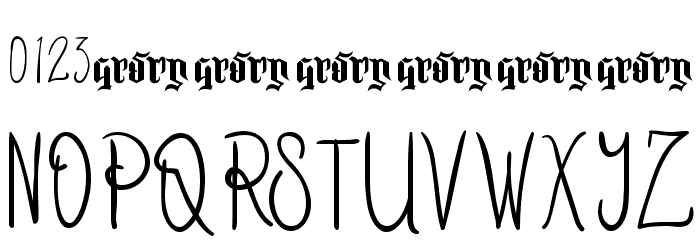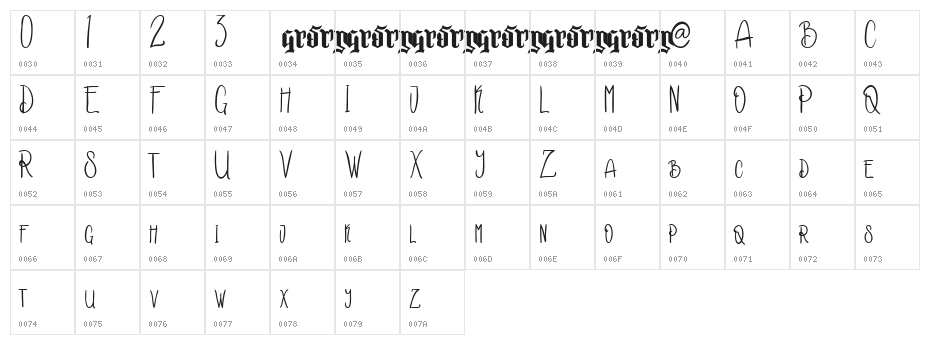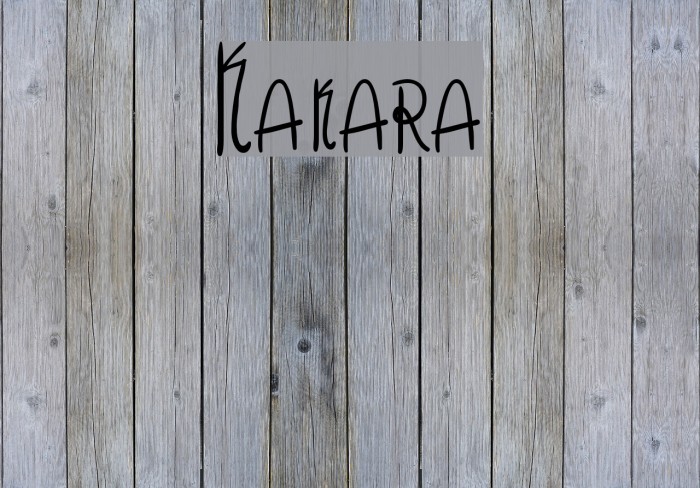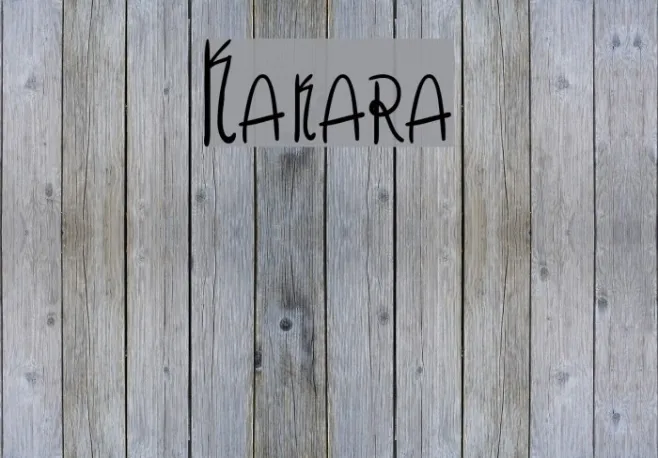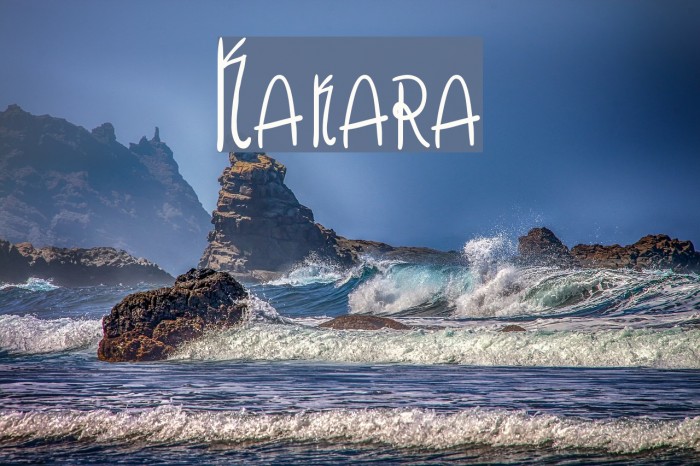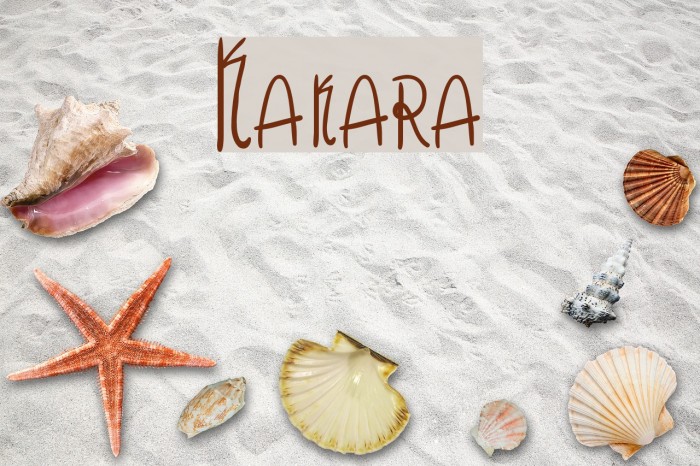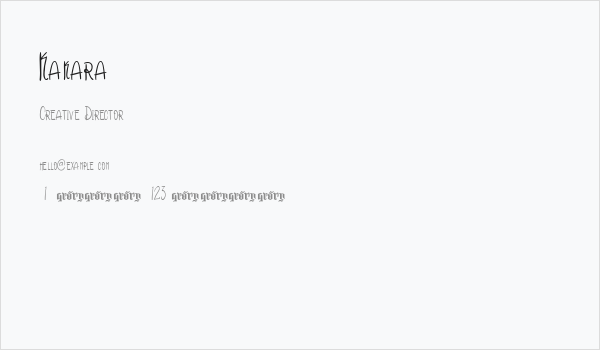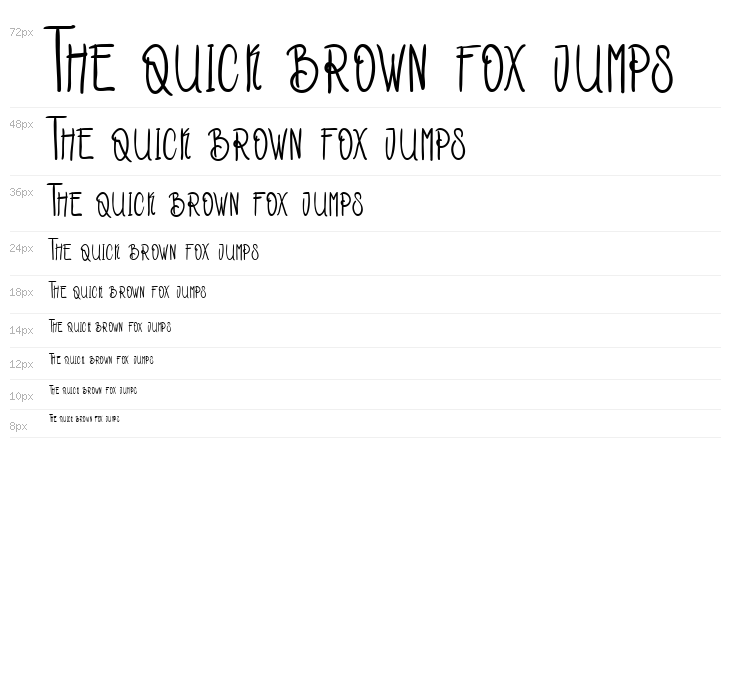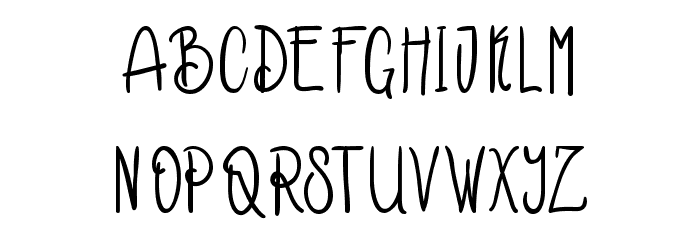
Kakara Font
Kakara Description
This font features a playful and whimsical style with tall, narrow characters that have a hand-drawn appearance. The uppercase letters are particularly elongated, giving the font a unique and artistic flair. The strokes are smooth and consistent, with a slight variation that adds to the hand-crafted feel. The lowercase letters maintain the same playful quality, with a slightly more compact form. This font is ideal for projects that require a touch of creativity and informality, such as children's books, greeting cards, or playful branding materials.
| Use Case | Headlines, Creative projects |
| Proposed Projects | Ideal for children's books, greeting cards, playful branding, and creative projects. |